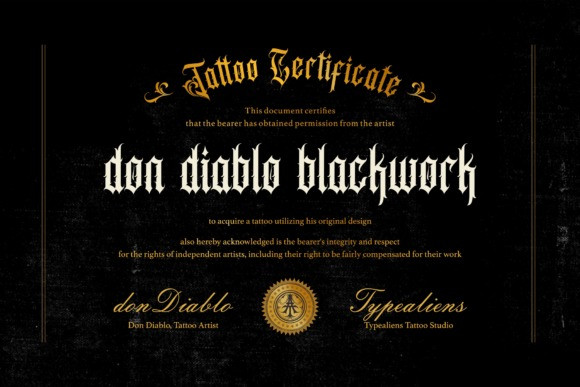
Acinonyx Jubatus Font
Acinonyx Jubatus Font is a modern and bold blackletter font. It features a dramatic look and it will most certainly elevate each of your designs.